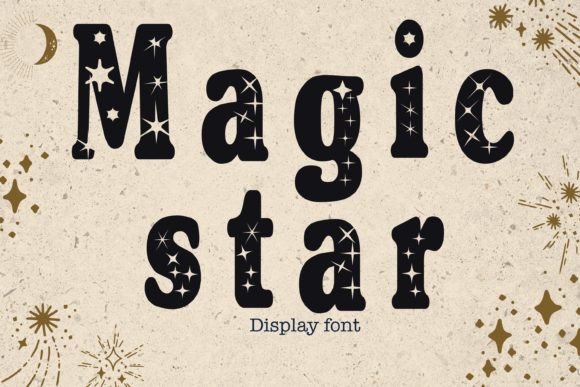
Prepare yourself to be mesmerized by the Magic Star Font, a dazzling decorative font that will ignite your imagination and transform your designs. Created by the ingenious PJ Fonttein, this font is a perfect blend of modernity and whimsy, designed to transport you to a realm of enchantment. Its sparkling and playful characters dance across the screen, evoking a sense of joy and wonder.
With its unique and eye-catching style, the Magic Star Font is an ideal choice for a wide range of design projects. Its versatility knows no bounds, whether you're creating whimsical invitations, captivating posters, mesmerizing social media graphics, or any other project that demands a touch of magic. It effortlessly adds a touch of personality and charm to any design, making it stand out from the crowd.
Step into a world of imagination and creativity with the Magic Star Font. Let your designs shine brighter than a thousand stars, captivating your audience with its enchanting aura. Unleash the magic within your designs and let your creativity soar. The Magic Star Font is more than just a font; it's an experience that will leave a lasting impression on your audience.